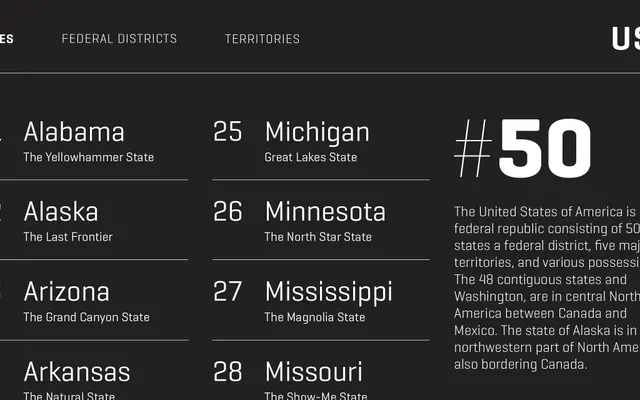
Geogrotesque
A semi-modular geometric sans with subtly rounded terminals, designed for display and intermediate-length text across seven weights.
Built on a consistent formal principle with optical corrections that allow the system to function as a workable alphabet, Geogrotesque sits between geometric rigidity and approachable warmth thanks to its rounded finish. Fourteen fonts cover seven weights from Thin to Bold, each with a matching italic, with the lighter cuts particularly intended for large-scale display use. Real-world adoption spans sports, editorial and institutional contexts, including Puma, Sports Illustrated and One World Observatory.
Geogrotesque combines a semi-modular geometric construction with subtle rounded terminals, placing it at the intersection of geometric and grotesque sans-serif traditions. The optical adjustments and warm finish distinguish it from purely mechanical geometric sans-serifs.